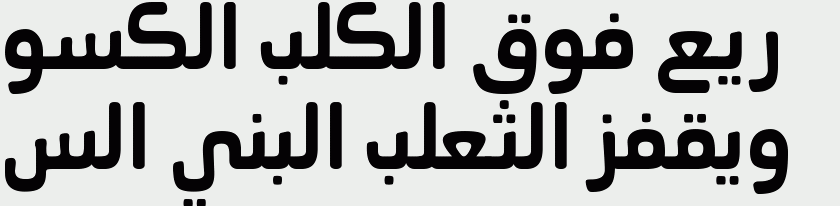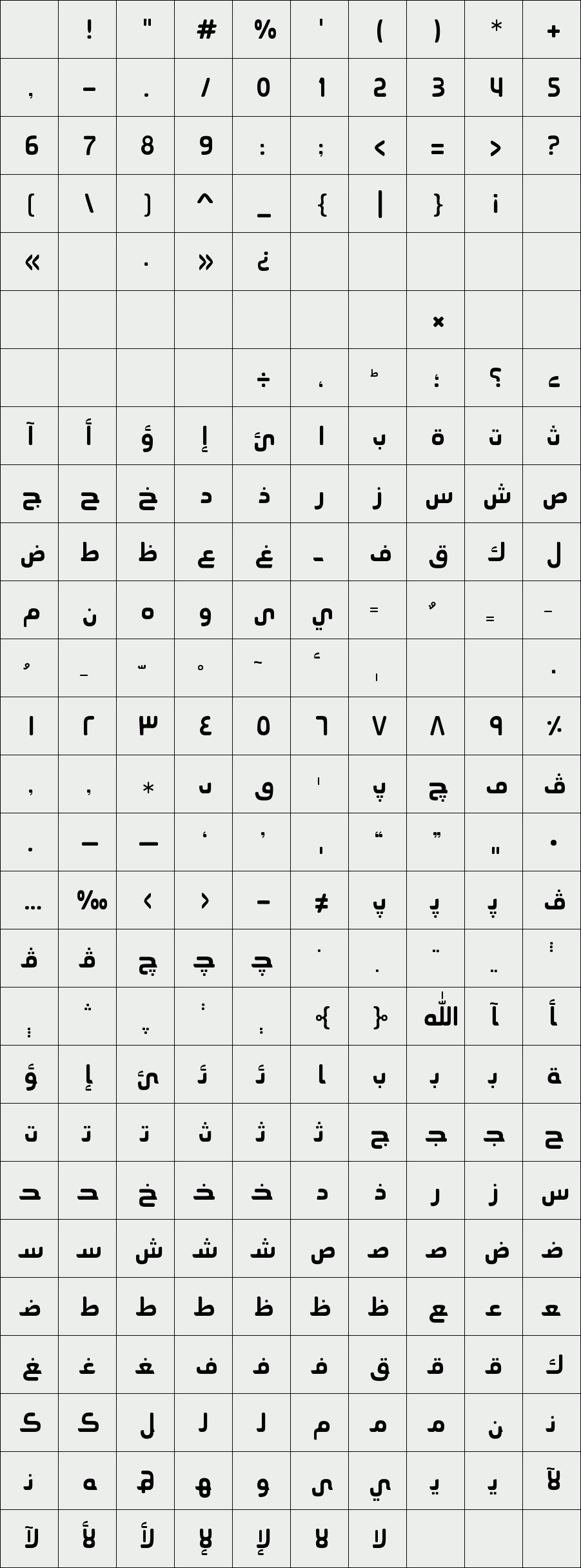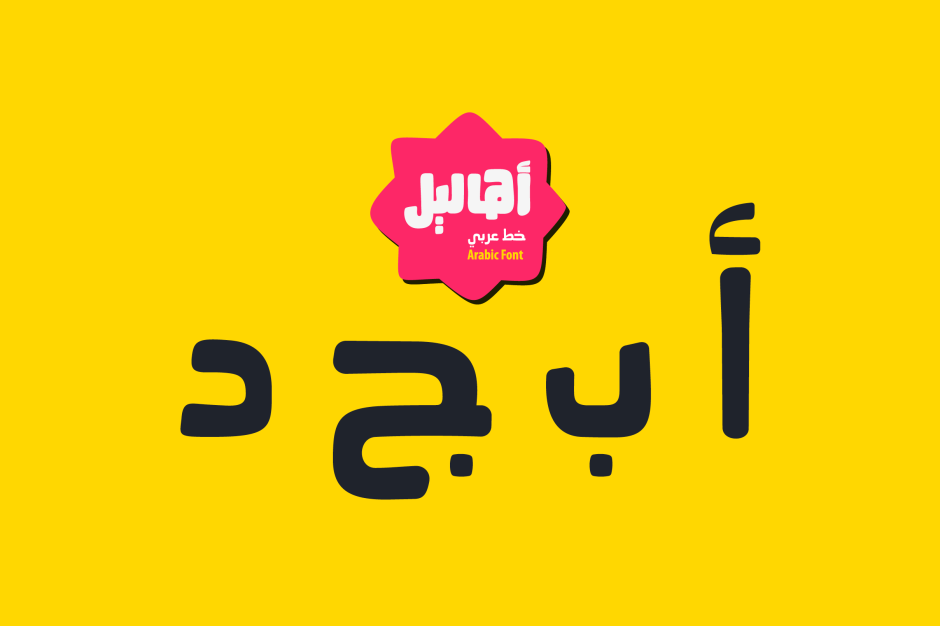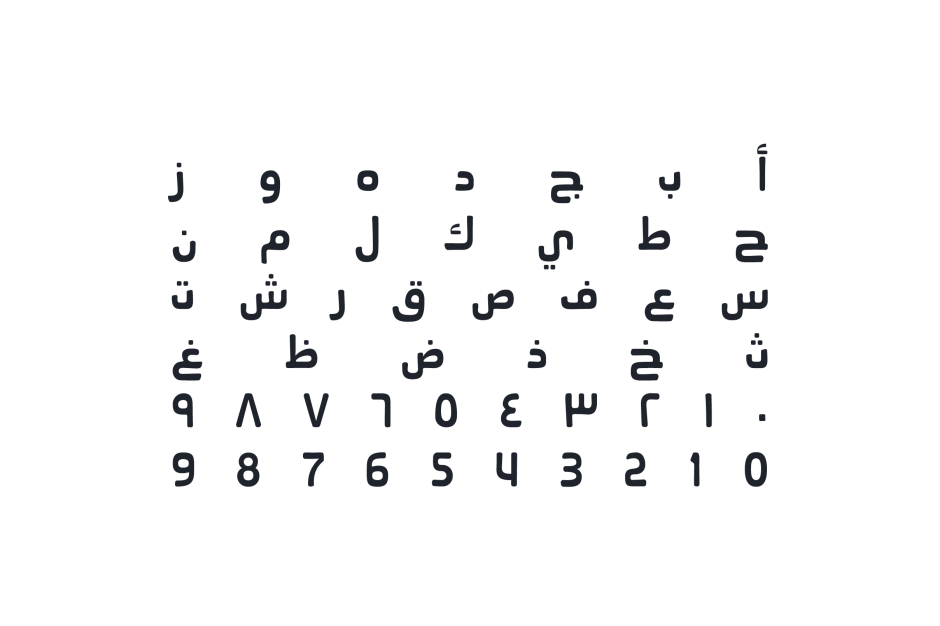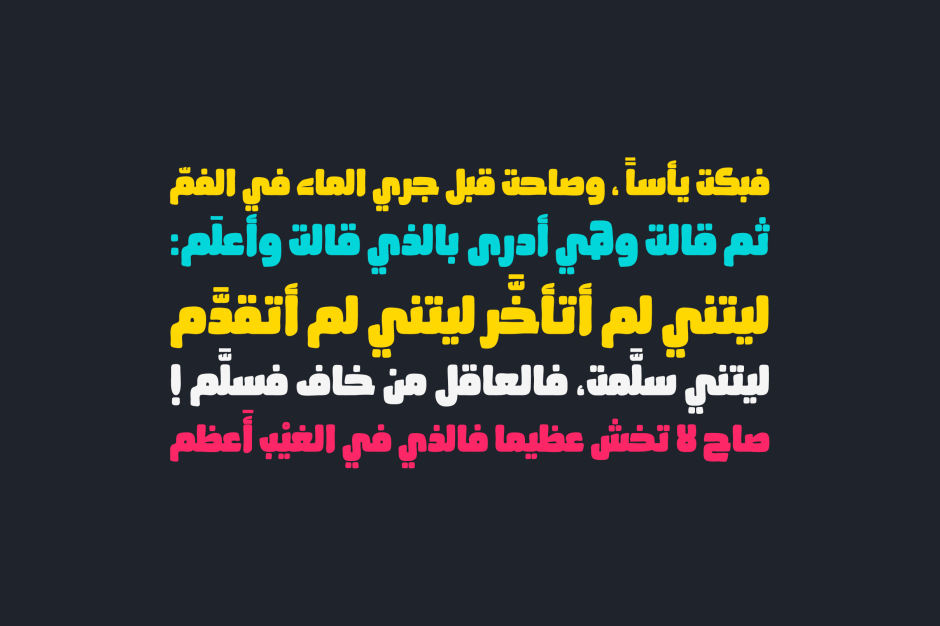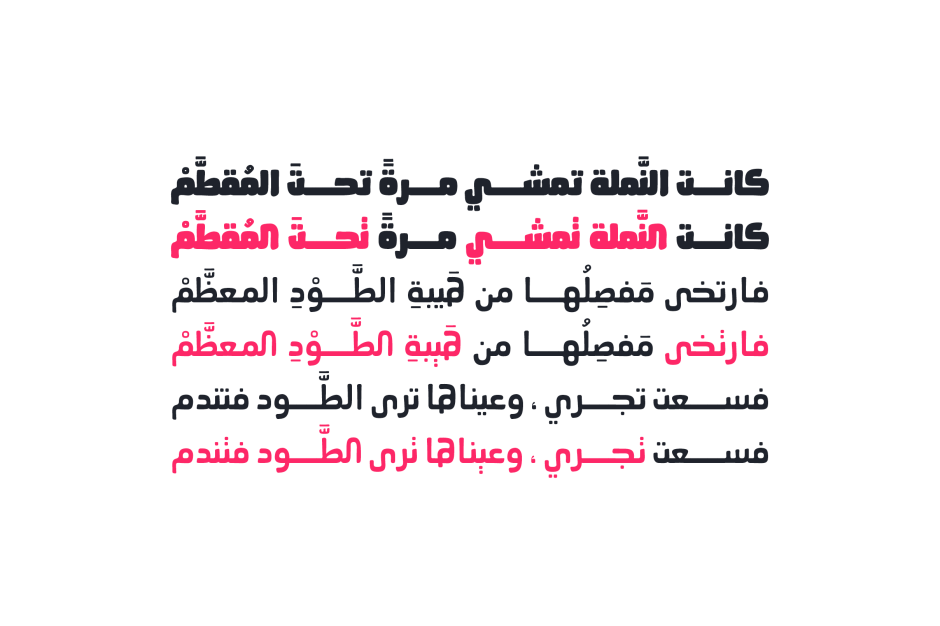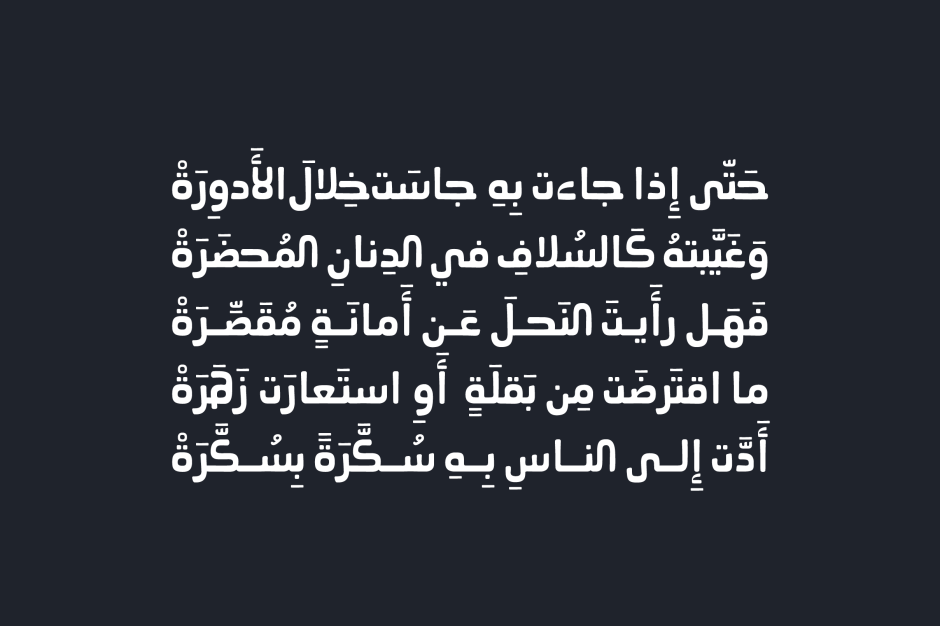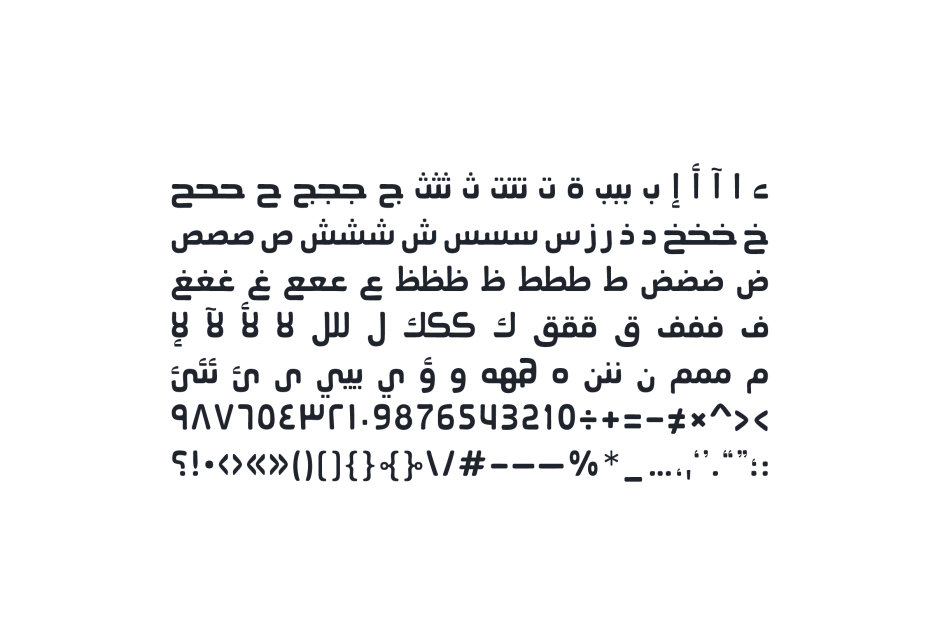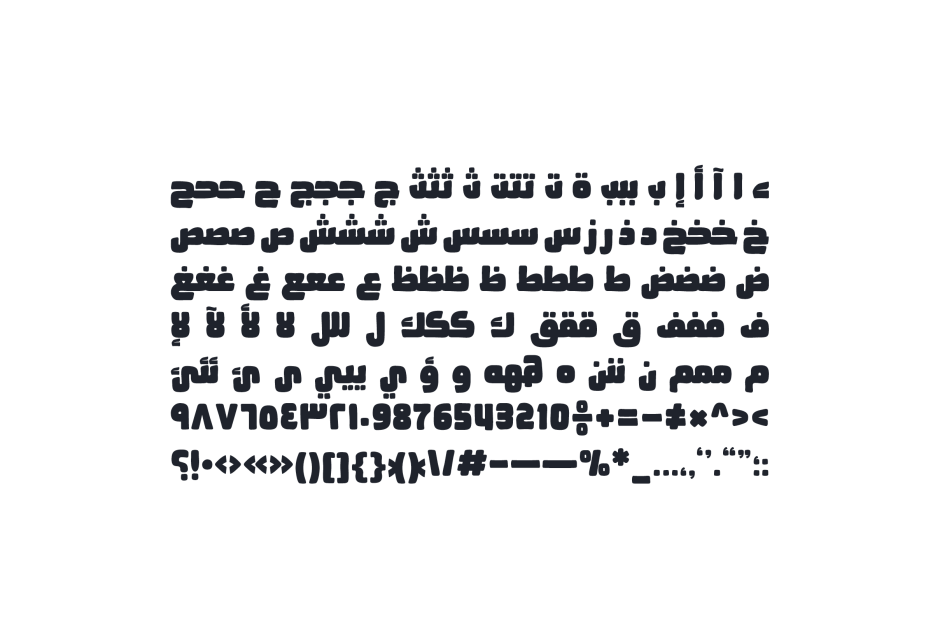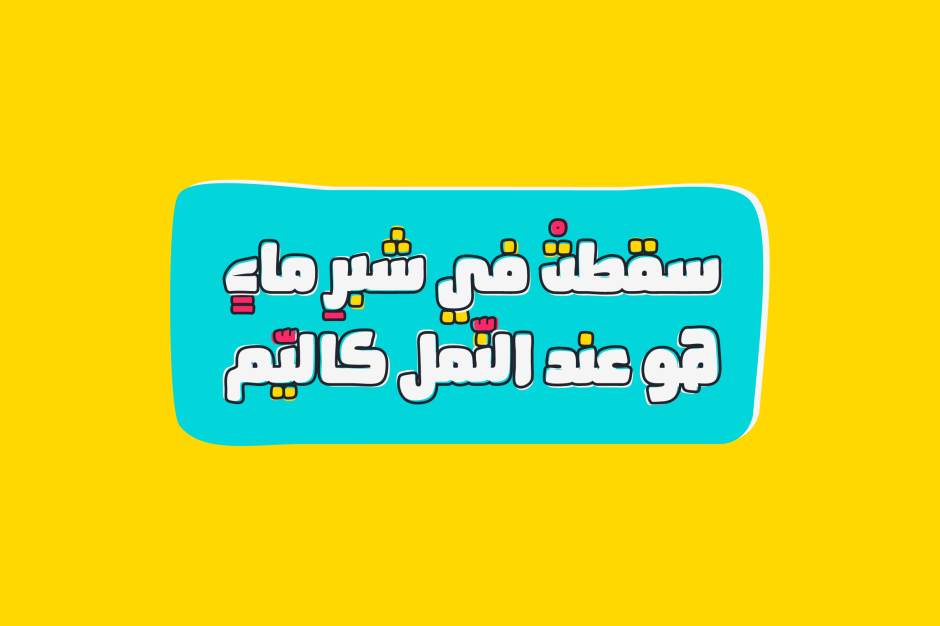
Ahaleel
Ahaleel is an Arabic display font that combines casual style with geometric structure. Ahaleel comes in two weights (Regular and Bold) and it suits branding, print, web and mobile applications.